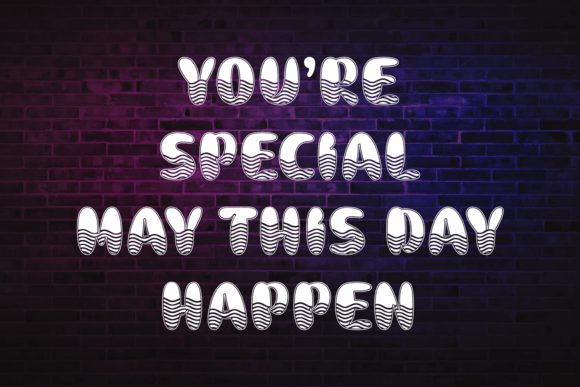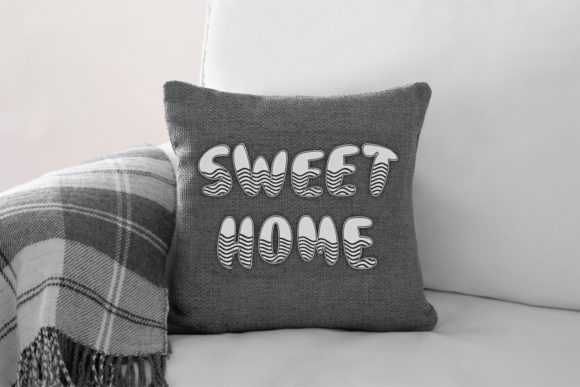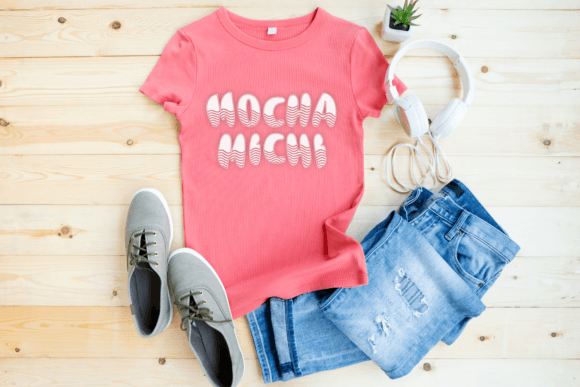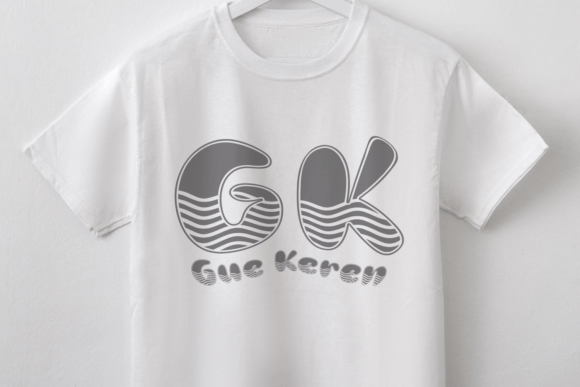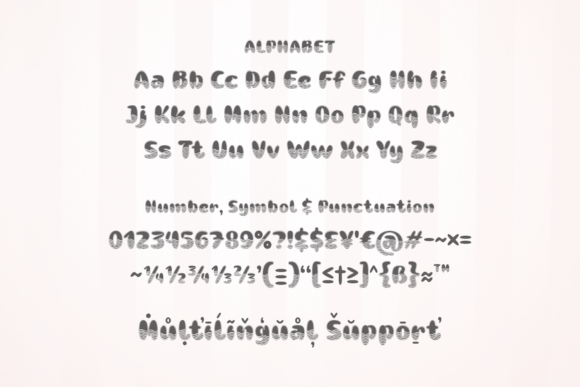
Introduction to Akafo Font
Akafo is a playful display font with a wavy pattern, adding a fun twist to your designs.
Its decorative style brings a touch of whimsy to any project, making it perfect for headlines, posters, and creative ventures Let Akafo’s unique charm bring life and personality to your work with its delightful waves and distinctive flair.
Key Features of Akafo Font
Why Choose Akafo Font?